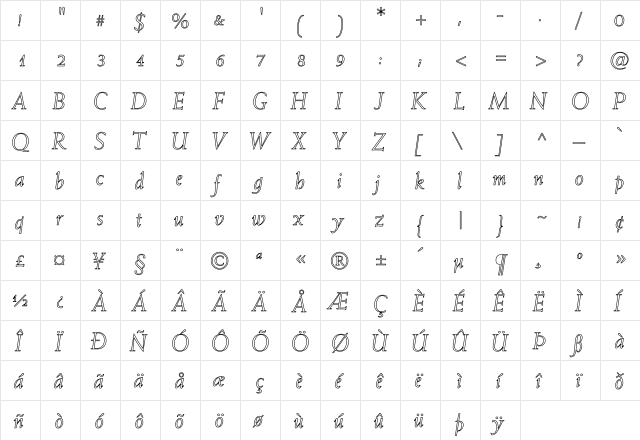
Weiss-Italic Hollow Regular
Design Context for Weiss-Italic Hollow Typeface
Weiss-Italic Hollow takes a measured approach to typography — its balanced proportions and neutral character make it a reliable workhorse for both digital and print work. The dynamic lean of this cut emphasises speed and emphasis in any layout.
Pro Tip: Use Weiss-Italic Hollow for emphasis, pull quotes, and subheadings where its slanted energy can add rhythm to the layout.